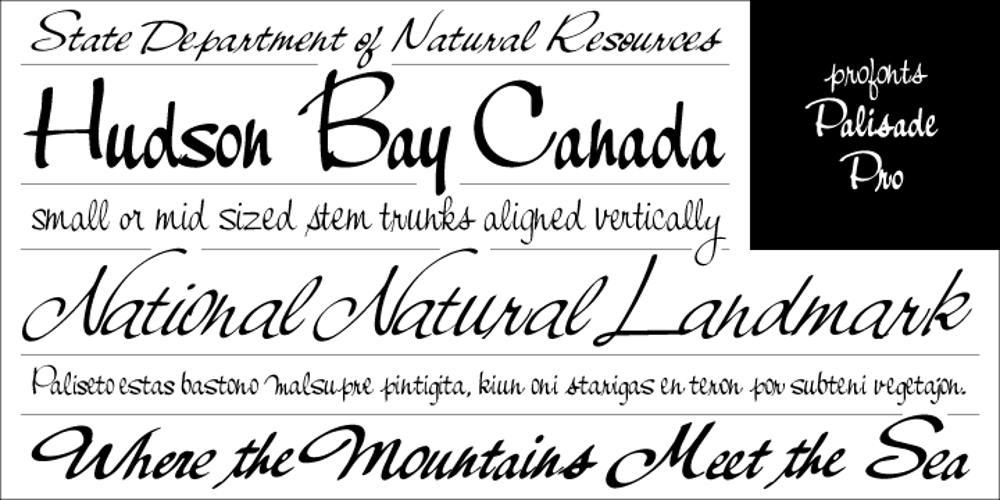
Palisade
Palisade font
Palisade Font Family was designed by Profonts Studio and published by profonts. Palisade contains 8 styles and family package options. Palisade Pro is a new, very elegant script family developed and manufactured in OpenType Pro format by profonts studio. Each of the eight weights contains approximately 1250 characters! The character range includes the complete Latin layout for Western and Eastern Europe, including the Baltic states, Romania and Turkey. Moreover, the character set contains a large selection of handcrafted ligatures (about 450 per font!), character combinations and alternative characters, which make this attractive script perfect for OTF-enabled applications such as InDesign and Quark Xpress version 7and later.